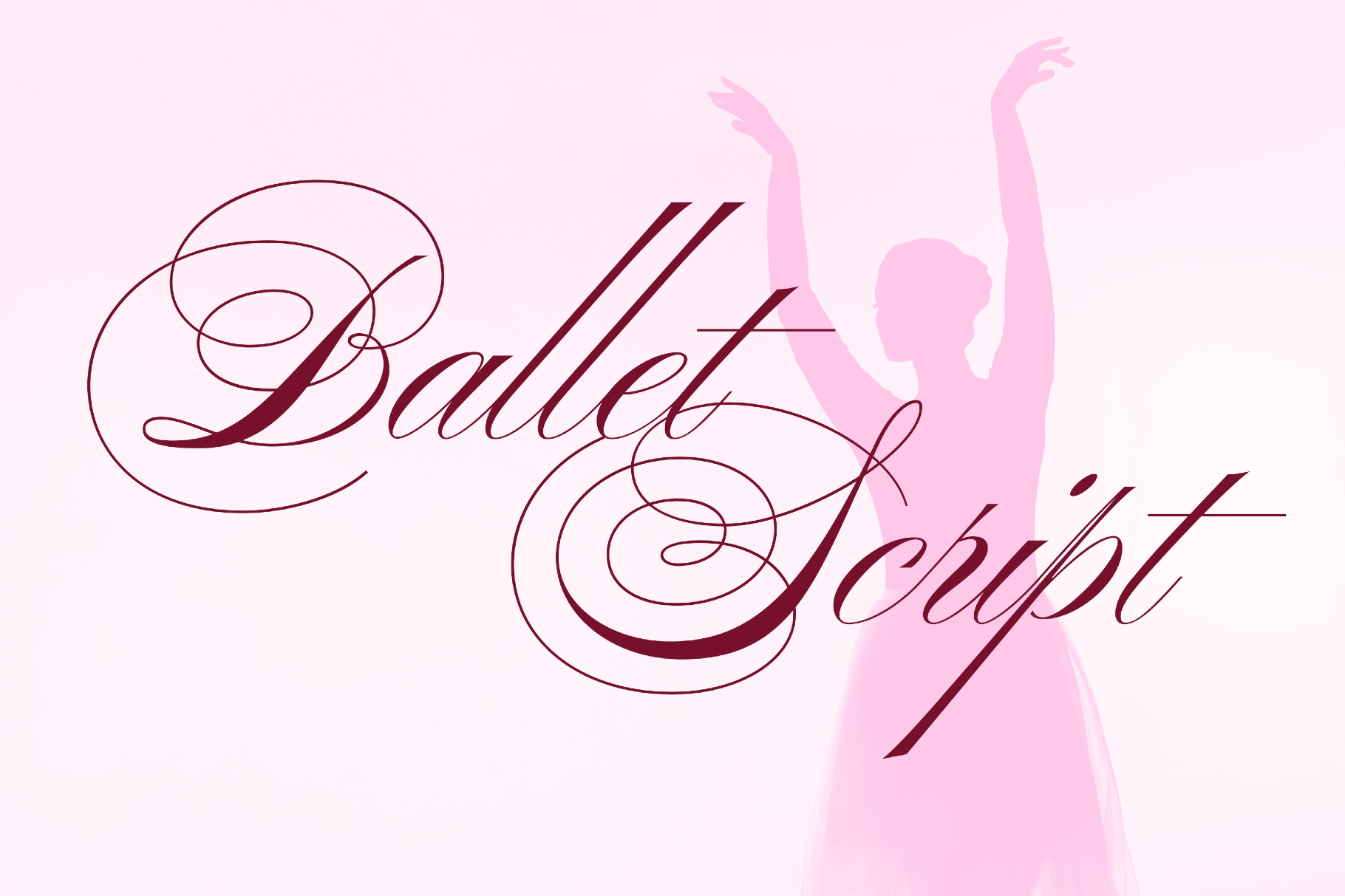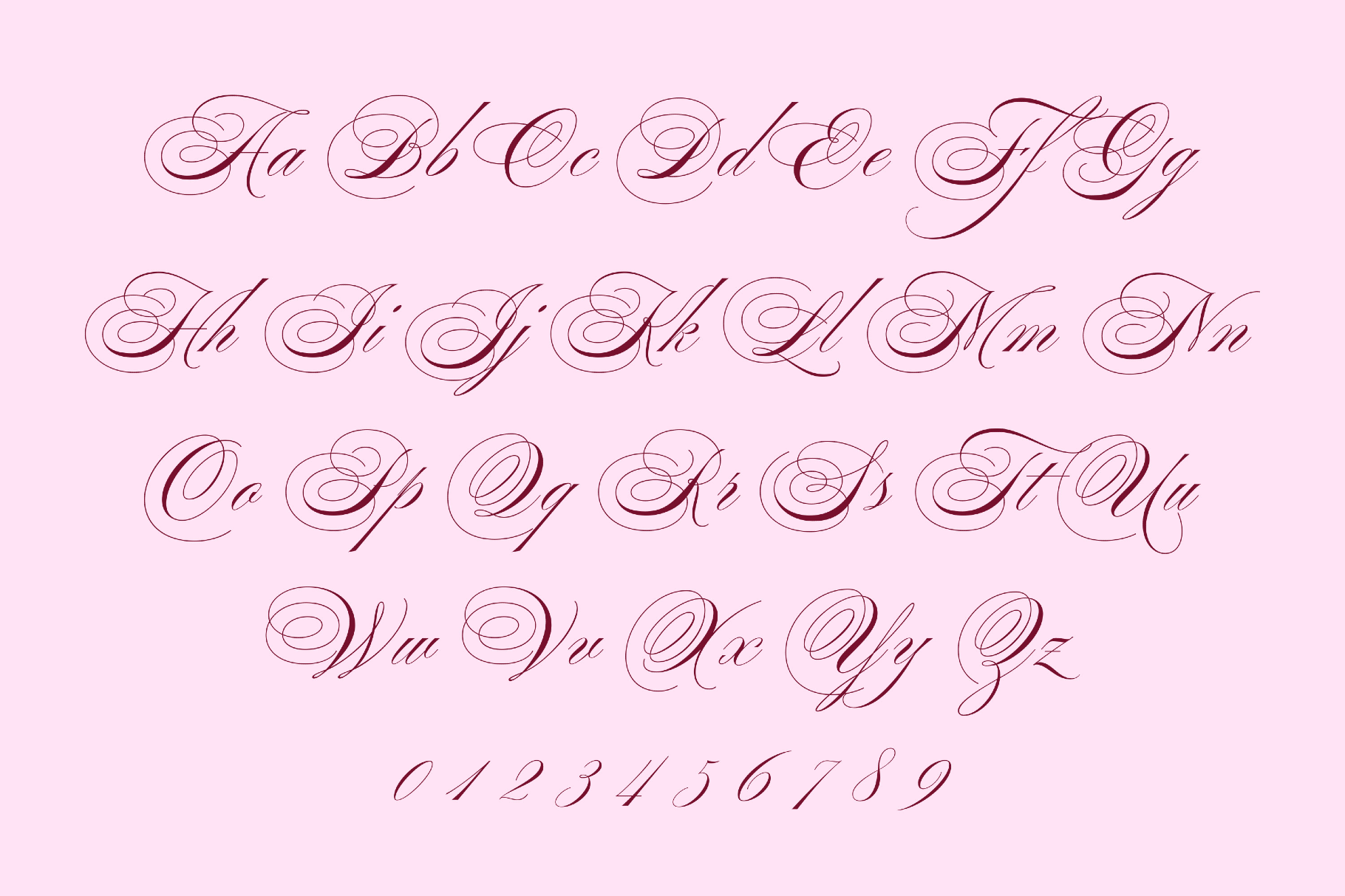
Ballet Script
Ballet Script is a delicate wedding calligraphy font with long ascenders, buoyant loops, and a polished, engraved finish that evokes Belle Époque dance posters and luxury stationery lettering. Use it for suites, save-the-dates, monograms, fragrance and cosmetics labels, ballet and theatre programs, boutique logo signatures, certificates, beauty branding, menus, packaging flourishes, editorial pull quotes, greeting cards, and romantic social headlines.